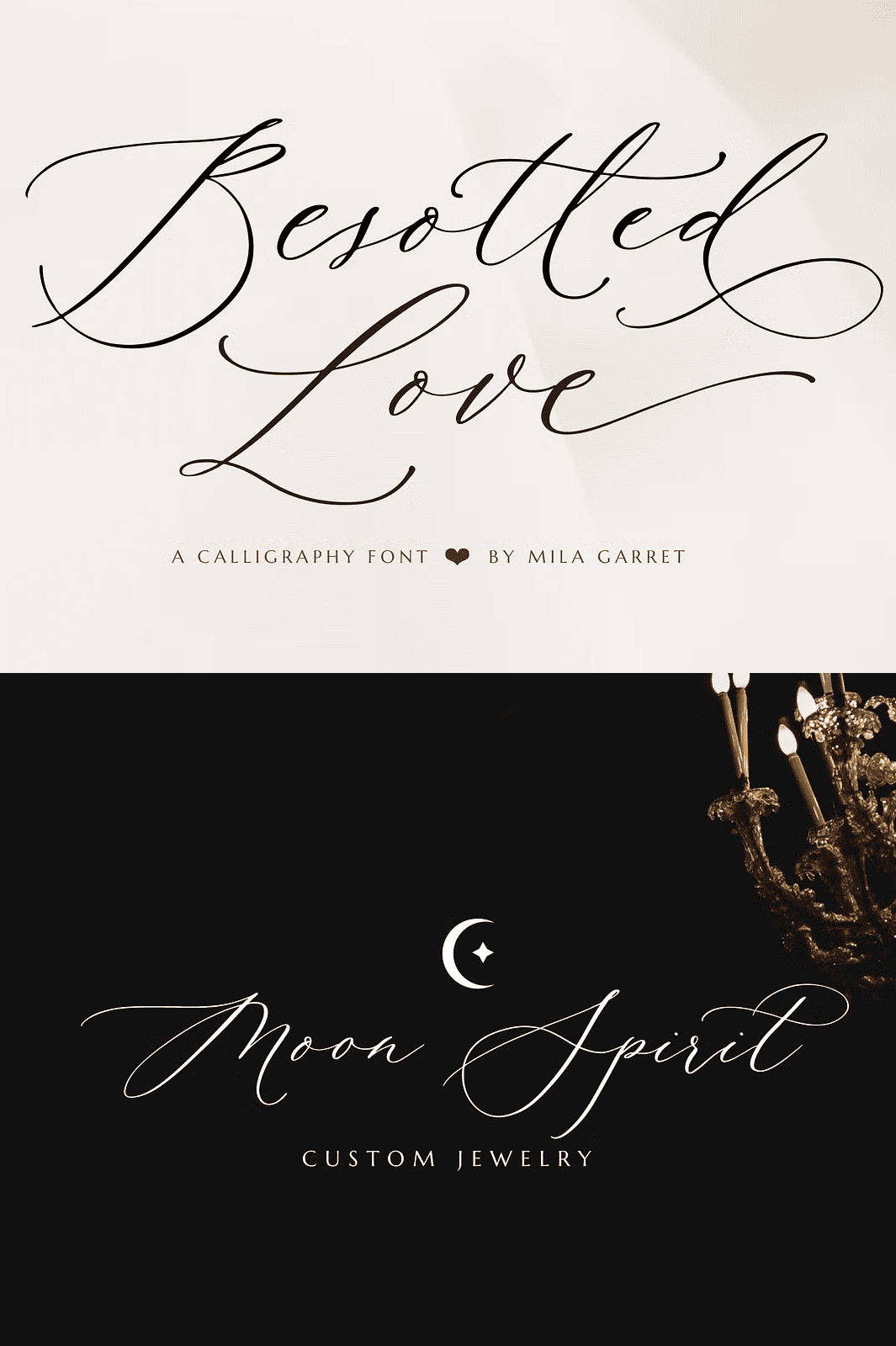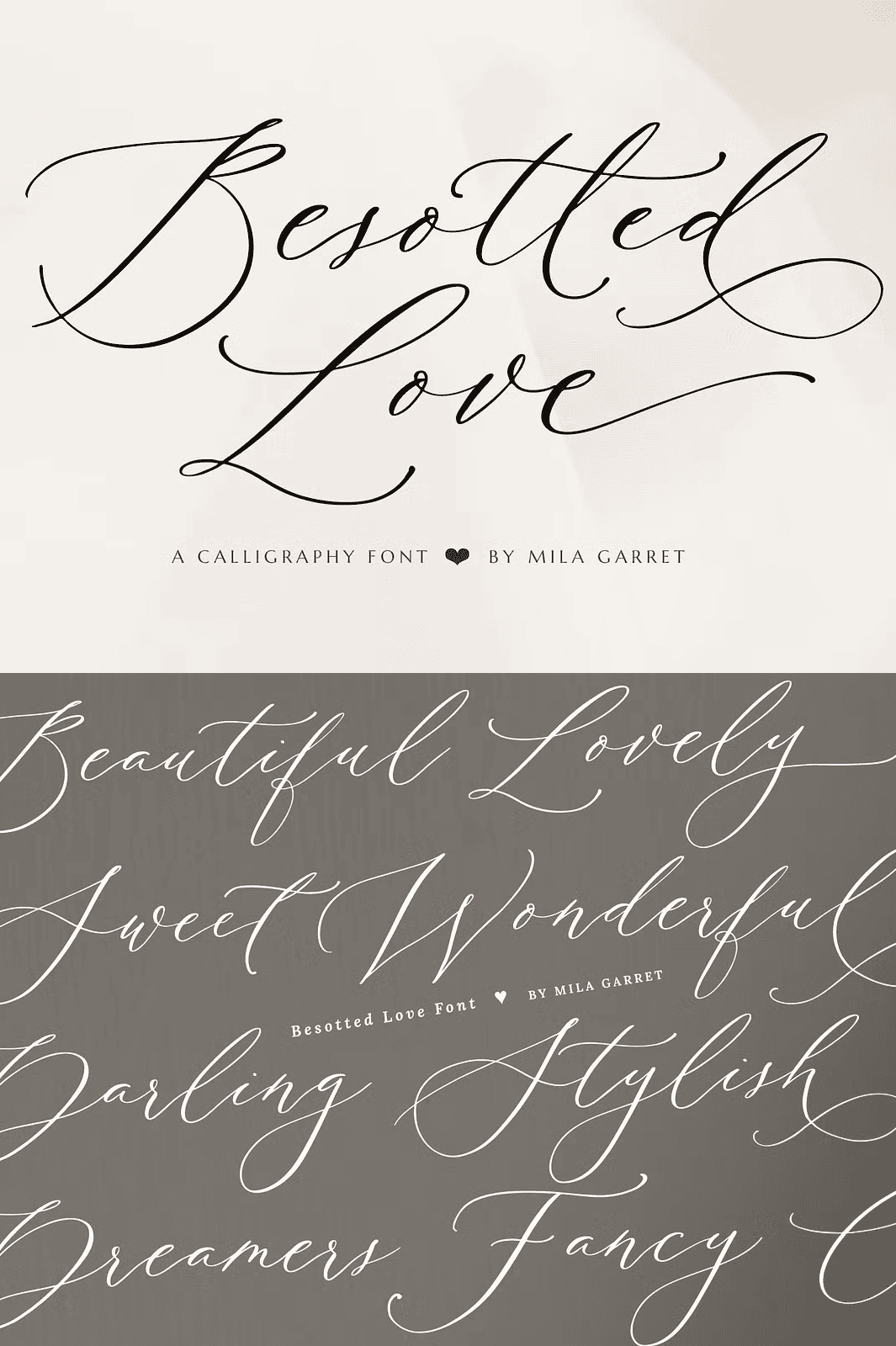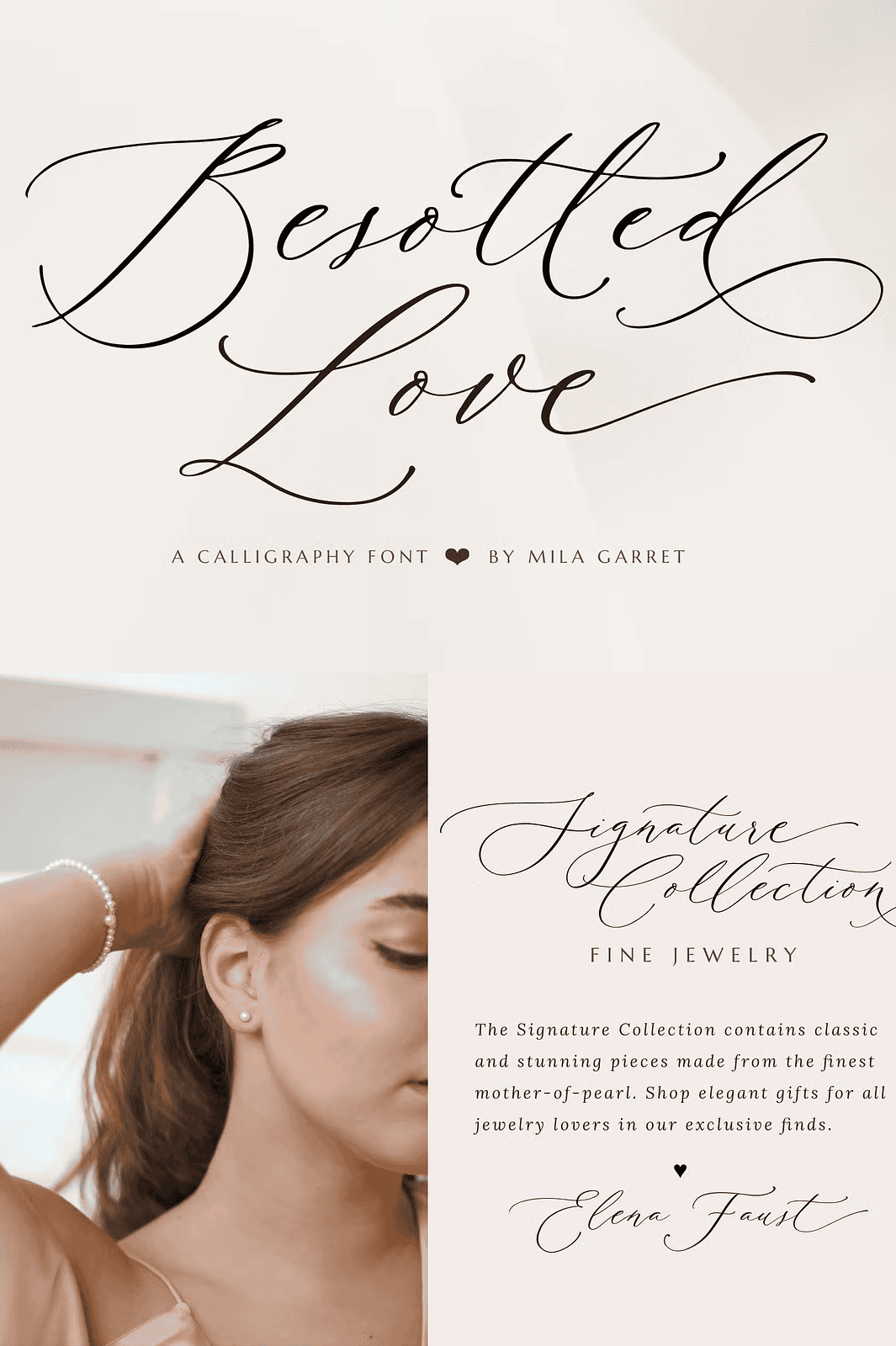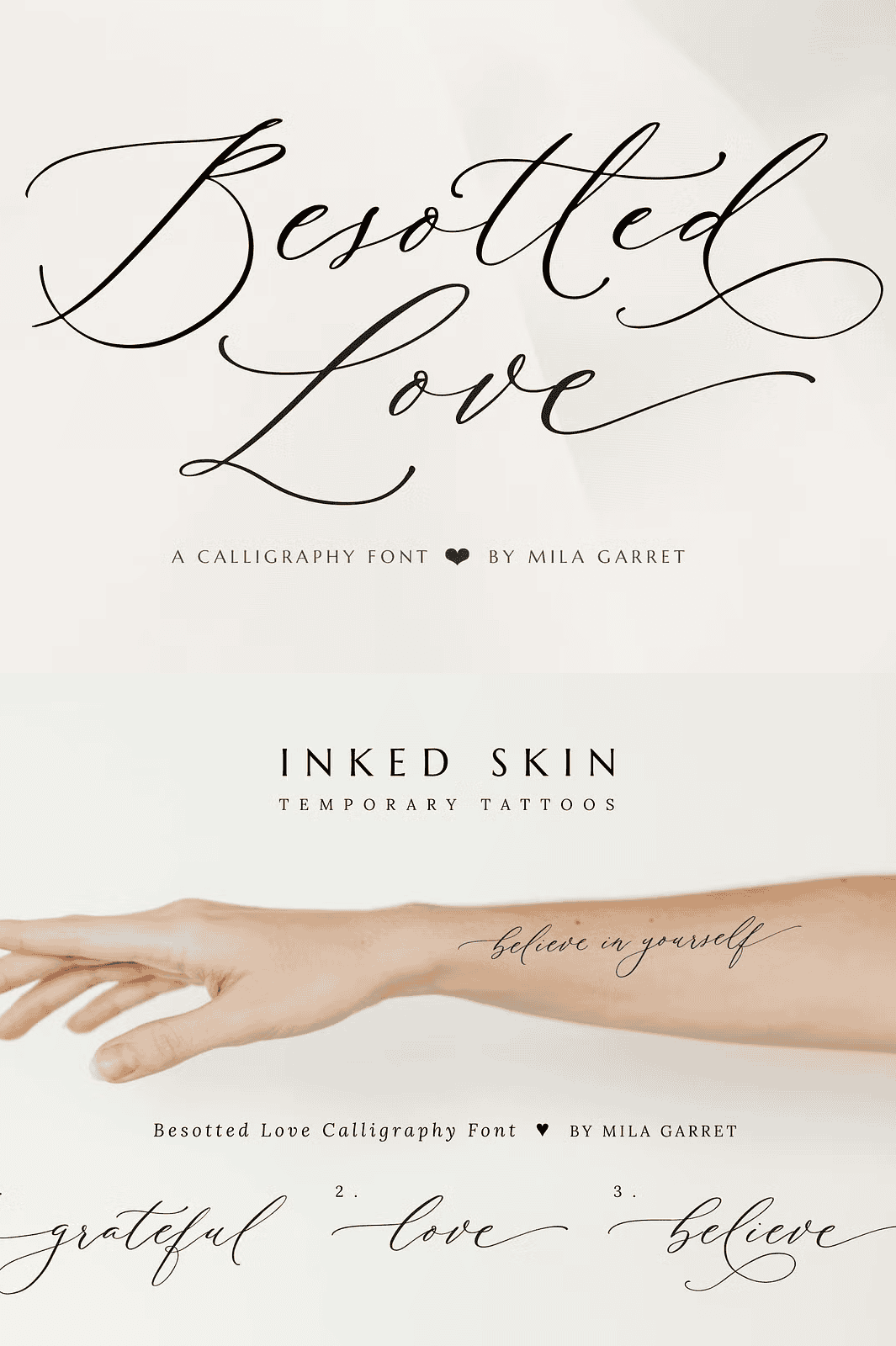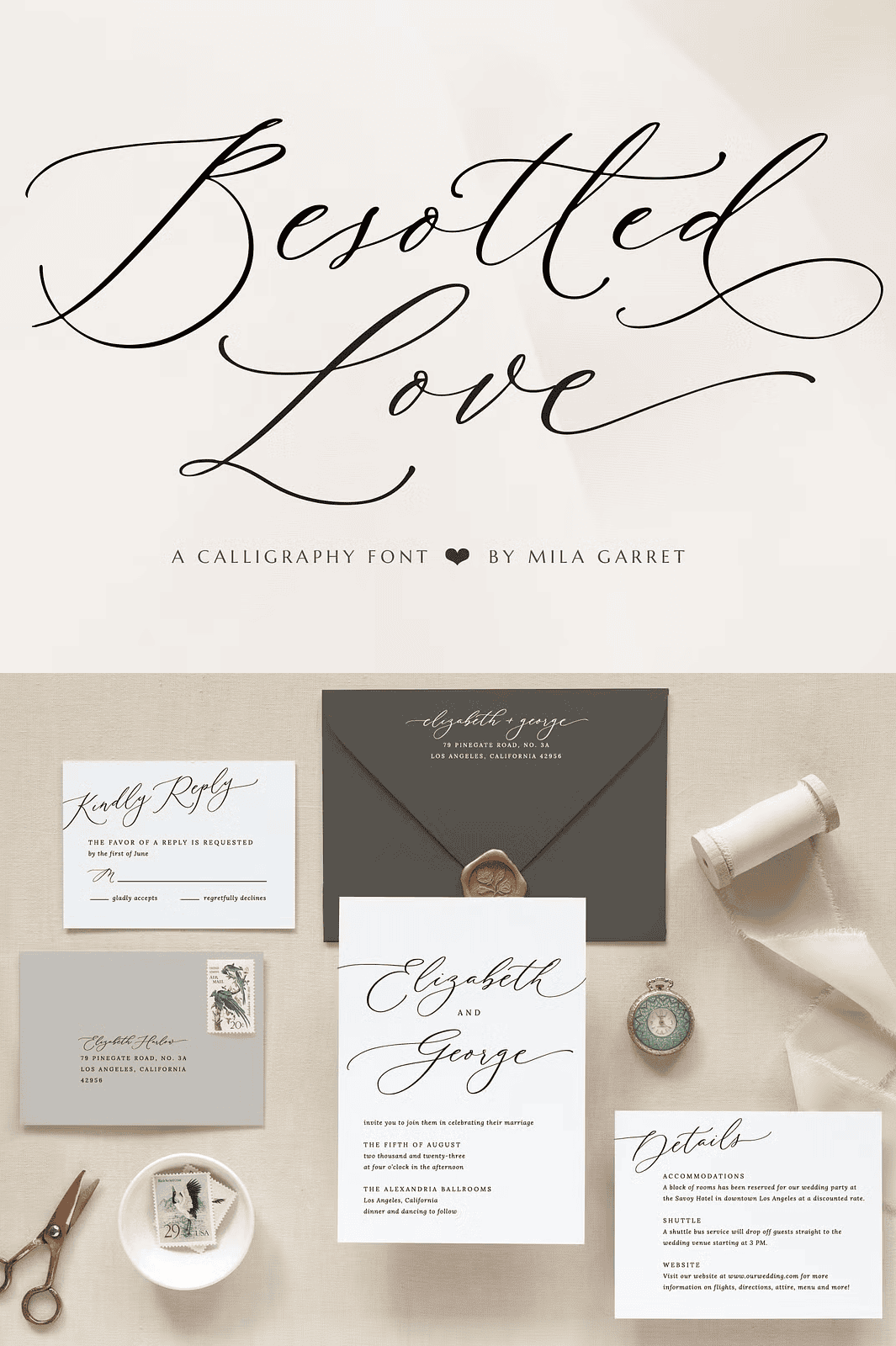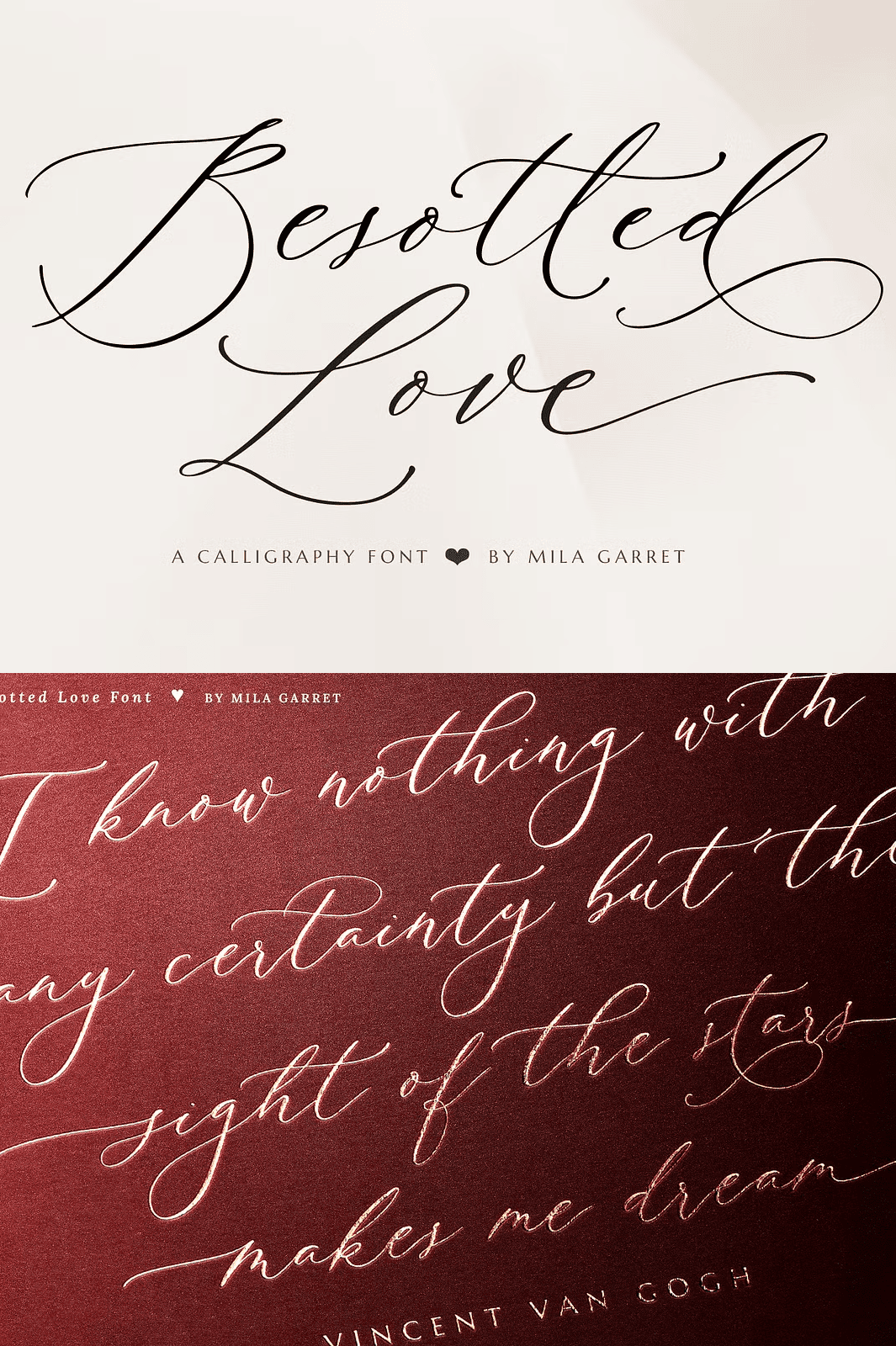
Besotted Wedding Calligraphy Font
Transform Your Projects with a Signature Handwritten Elegance
Elevate your creative work with **Besotted Love**, a premium wedding calligraphy font that blends refined grace with modern functionality. Designed for professionals and enthusiasts alike, this luxurious typeface delivers a truly handcrafted feel, perfect for high-end wedding stationery, elegant logos, photography branding, modern websites, and sophisticated print materials.
Every curve, swash, and stroke has been carefully crafted to emulate the delicate precision of real calligraphy. No digital stiffness. No robotic repetition. Just authentic beauty that brings emotion and personal touch to every design.
Unlock a Full Suite of Designer-Ready Features
Besotted Love isn’t just a font — it’s a complete typographic toolbox. It includes:
– **Complete uppercase and lowercase alphabet** with standard character coverage
– **Full set of uppercase swash letters** for dramatic, flowing headlines
– **Beginning swashed capitals** — perfect for opening your designs with flair
– **Beginning and ending swashed lowercase letters** — add subtle motion and rhythm to every word
– **Stylistic alternates** for endless variation and customized visual storytelling
Whether you’re designing a bridal shower invite, a brand website, or a luxury photography portfolio, Besotted Love gives you full creative freedom without technical limitations.
Perfect for Wedding & Luxury Branding, Every Time
Choose Besotted Love when you need designs that exude class, romance, and emotional impact. Ideal applications include:
– Wedding invitations and RSVP cards
– Save-the-date announcements and ceremony programs
– Bridal shower and engagement party materials
– Photography and event branding (logos, social media banners)
– Personalized gift packaging and stationery sets
– High-end digital portfolios and modern website headers
Let every element reflect the elegance and intimacy of the moment.
Stop settling for generic fonts. Stand out with Besotted Love a font that doesn’t just say “I care,” it *feels* like it.
Bring your next project to life with a touch of romance, a stroke of class, and the timeless charm of Besotted Love where every letter tells a story.